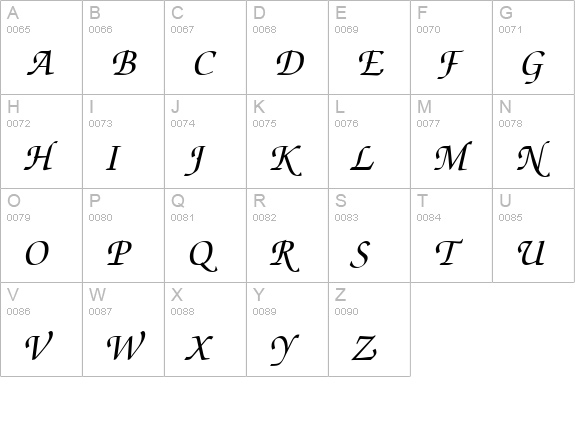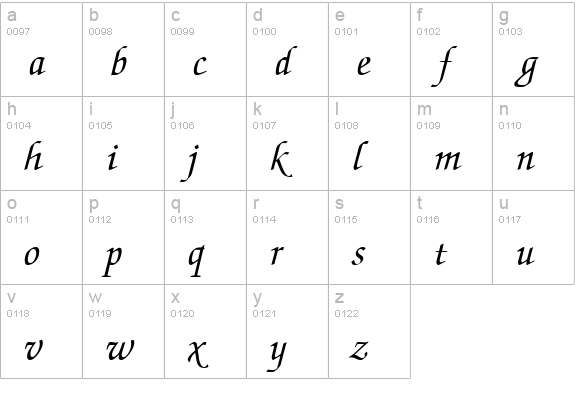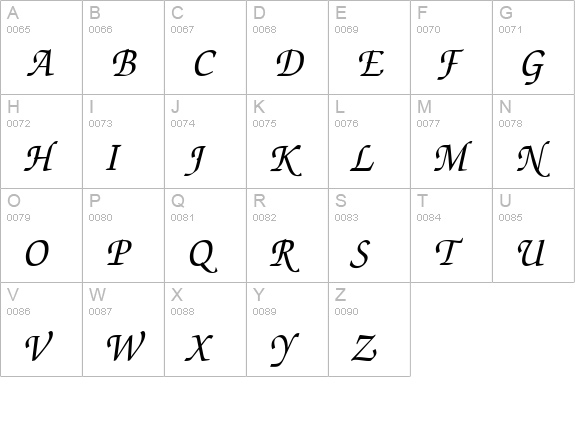
ZurichCalligraphic Italic is a distinctive, italic variant in the ZurichCalligraphic typeface family \xE2\x80\x94 well suited to design and typography projects.
Introducing ZurichCalligraphic Italic font, a stunning and elegant typeface that exudes sophistication and grace. With its flowing curves and delicate strokes, this font is perfect for adding a touch of refinement to any design project. Whether you are creating wedding invitations, branding materials, or elegant signage, ZurichCalligraphic Italic font will elevate your work to the next level. What's even better is that ZurichCalligraphic Italic font is completely free to download at FontsMarket.com. Yes, you read that right - you can add this exquisite font to your collection without spending a dime. Take advantage of this amazing offer and enhance your designs with the timeless beauty of ZurichCalligraphic Italic font today!